Understanding typography tips for improving user experience is essential for designers who want to create clear, engaging, and effective designs. Typography is not just about choosing fonts; it directly affects how users read, navigate, and interact with content.
In today’s digital world, users expect fast and effortless experiences. Therefore, good typography plays a key role in ensuring that information is easy to understand. When typography is applied correctly, it enhances usability and keeps users engaged.
In this article, we will explore practical typography tips for improving user experience, including readability, spacing, hierarchy, and font pairing.
Why Typography Tips for Improving User Experience Matter
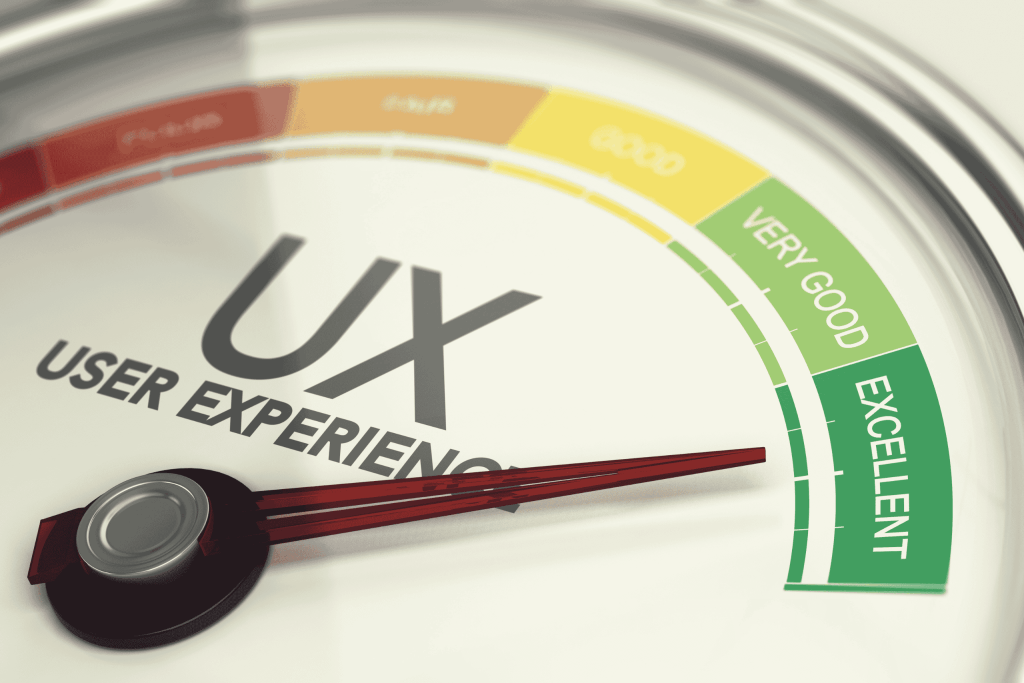
The importance of typography tips for improving user experience lies in how users consume content. People do not read every word; they scan. Because of this behavior, typography must guide users smoothly through the content.
Good typography helps:
- Improve readability
- Reduce user frustration
- Increase engagement
- Enhance accessibility
Moreover, clear typography makes interfaces more intuitive. As a result, users can quickly find the information they need.
Typography Tips for Improving User Experience Through Readability
Readability is the foundation of user experience. Without it, even the best design will fail.
1. Choose Easy-to-Read Fonts
First, select fonts that are clear and simple. Sans-serif fonts are often preferred for digital screens because they are clean and modern.
For example:
- Sans-serif → Websites and apps
- Serif → Editorial or long-form content
However, avoid overly decorative fonts for body text.
2. Use Appropriate Font Size
Font size greatly affects readability. If the text is too small, users will struggle to read it. On the other hand, text that is too large can feel overwhelming.
Recommended:
- Body text → 16px–18px
- Headings → Larger and bold
As a result, users can read comfortably across devices.
3. Maintain Proper Line Length
Line length should not be too long or too short.
Ideal range:
- 50–75 characters per line
This improves reading flow and reduces eye strain.
Typography Tips for Improving User Experience Through Hierarchy
Hierarchy helps users understand content structure.
1. Use Clear Headings (H1, H2, H3)
Headings guide users through the content. For example:
- H1 → Main title
- H2 → Sections
- H3 → Subsections
Because of this structure, users can scan content with ease.
2. Use Font Weight and Size
Hierarchy can also be created using:
- Bold text for emphasis
- Larger sizes for titles
- Smaller sizes for details
This makes content more organized and visually appealing.
3. Highlight Important Information
Use contrast or bold text to highlight key points. However, avoid overusing emphasis because it reduces effectiveness.
Typography Tips for Improving User Experience Through Spacing
Spacing is often overlooked, but it is crucial.
1. Use Proper Line Spacing
Line spacing (leading) improves readability.
Recommended:
- 1.4–1.6 line height
As a result, the text feels more open and easier to read.
2. Add White Space
White space gives content room to breathe. Moreover, it helps users focus on important elements.
3. Adjust Letter Spacing
Letter spacing (tracking) should be balanced.
- Too tight → Hard to read
- Too loose → Feels disconnected
Therefore, always test spacing carefully.
Typography Tips for Improving User Experience Through Font Pairing
Font pairing creates balance and visual interest.
1. Combine Two Fonts Only
Use:
- One font for headings
- One font for body text
Too many fonts can confuse users.
2. Create Contrast
Pair different styles:
- Serif + Sans-serif
- Bold + Regular
This creates a clear visual hierarchy.
3. Maintain Consistency
Consistency is key. Use the same font styles throughout your design to build familiarity.
Typography Tips for Improving User Experience in Digital Design
Digital platforms require special attention.
Responsive Typography
Fonts must adapt to different screen sizes. Therefore, always test on:
- Mobile
- Tablet
- Desktop
Accessibility
Typography should be accessible to all users.
Tips:
- Use sufficient contrast
- Avoid overly thin fonts
- Ensure readable sizes
As a result, your design becomes inclusive.
Performance Optimization
Using too many font files can slow down websites. Therefore, limit font usage to improve performance.
How Typography Improves User Experience Overall
Typography influences how users interact with content.
For example:
- Clear fonts → Faster reading
- Good spacing → Better comprehension
- Strong hierarchy → Easier navigation
Conclusion
Applying typography tips to improve user experience is essential for creating effective, user-friendly designs. Typography affects readability, structure, and overall interaction.
Additionally, by focusing on clarity, spacing, hierarchy, and consistency, designers can create a better user experience. Good typography not only improves usability but also strengthens visual communication.
In the end, typography is not just a design element; it is a powerful tool that shapes how users experience your content.